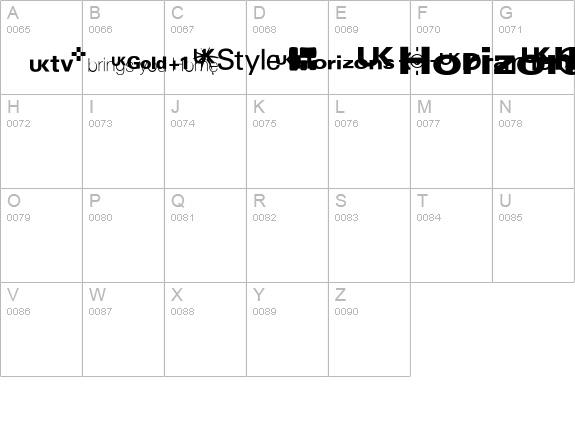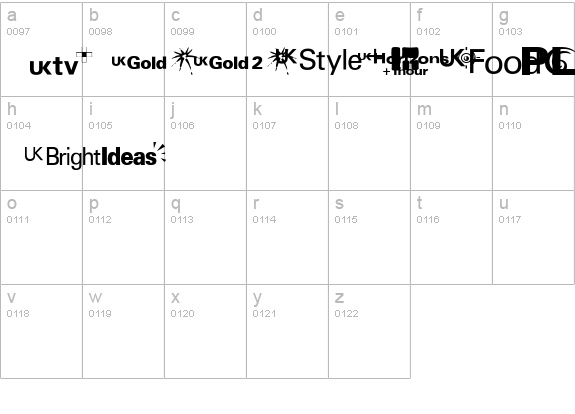
UKtv Family Logos Font Details
Introducing UKtv Family Logos font, a versatile and captivating typeface that exudes warmth, playfulness, and a touch of nostalgia. Designed specifically for UKtv Family, this font is perfect for bringing a sense of joy and familiarity to any project. With its clean and contemporary letterforms, UKtv Family Logos font strikes the perfect balance between modern design and a classic, timeless feel. Its carefully crafted curves and strokes create a harmonious visual rhythm, making it a truly eye-catching choice. But what sets UKtv Family Logos font apart is not just its stunning aesthetics, but also its accessibility. It is available for free download at FontsMarket.com, allowing everyone to enjoy the charm and versatility of this remarkable typeface. Whether you're creating a logo, designing a website, or crafting a poster, UKtv Family Logos font is here to elevate your project to new heights. Its wide range of weights and styles gives you the freedom to experiment and create unique combinations that perfectly reflect your brand's personality. So, why wait? Download UKtv Family Logos font now and let it add a touch of magic to your designs. Discover the beauty of this typeface and unleash your creativity with the free availability at FontsMarket.com.